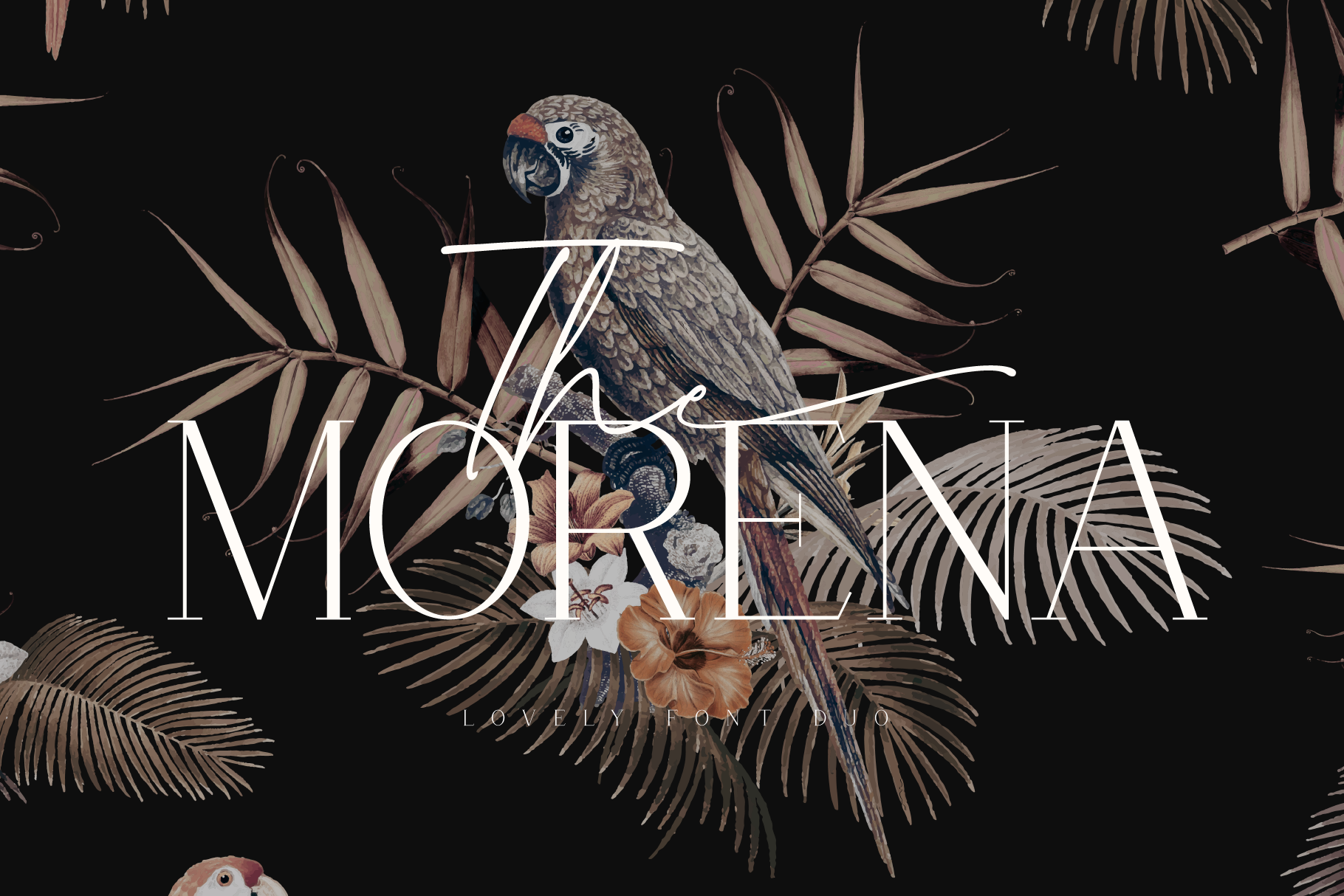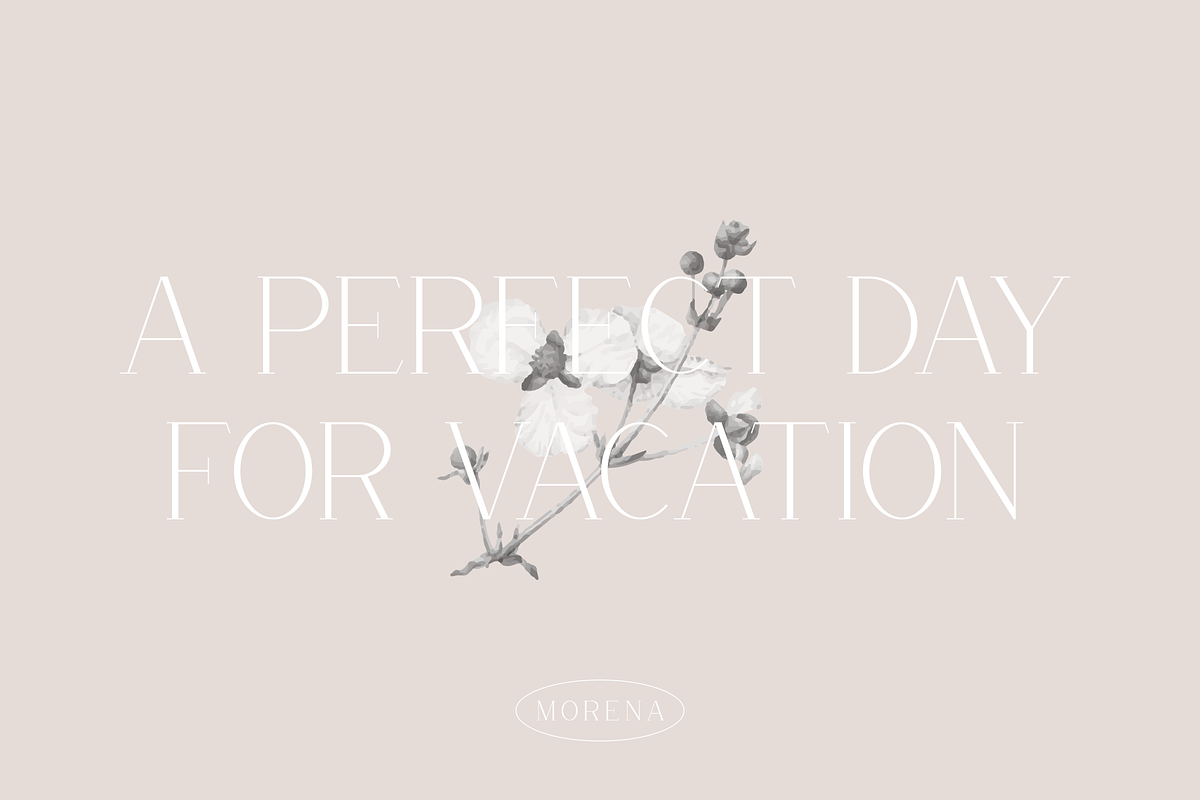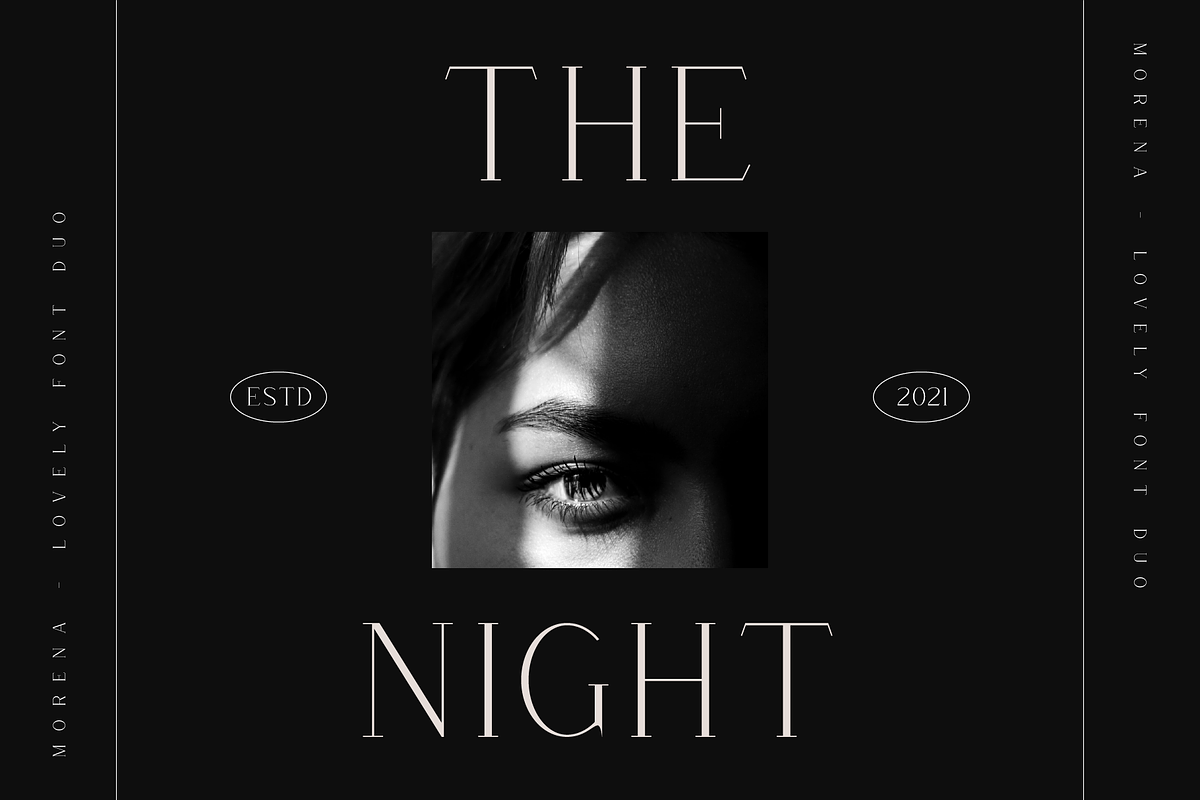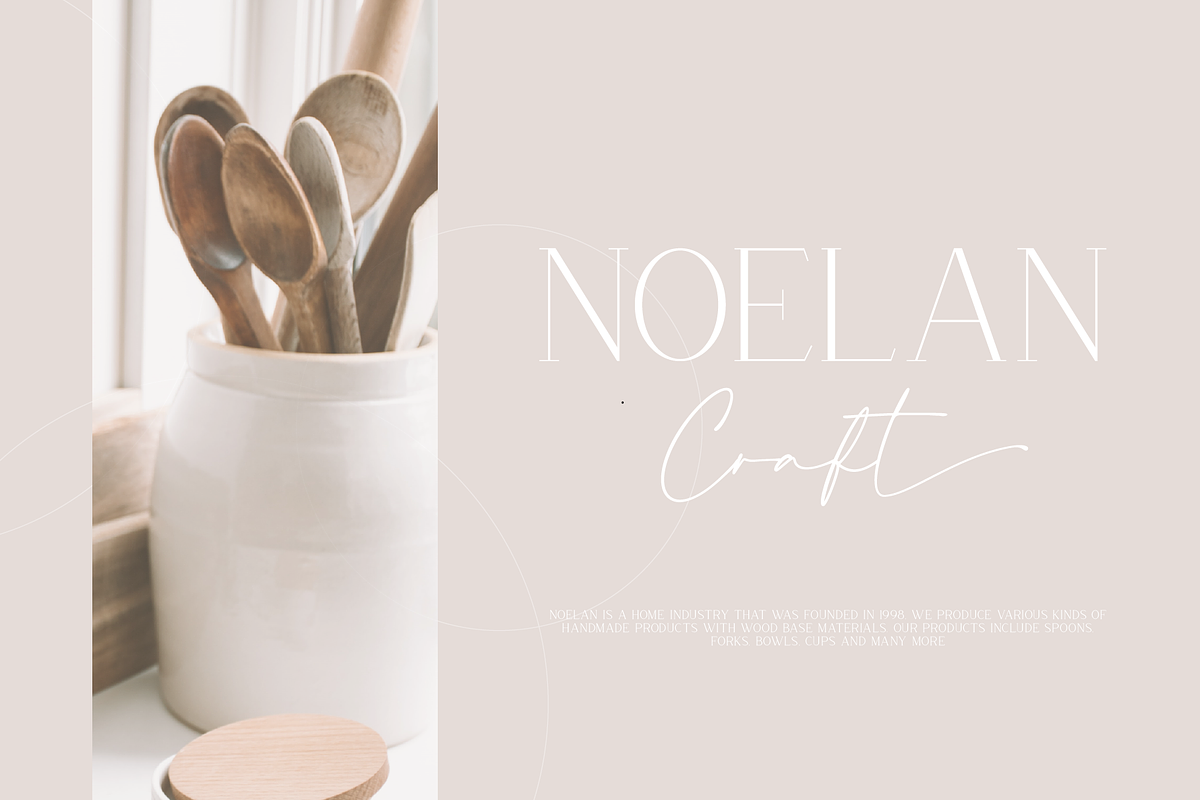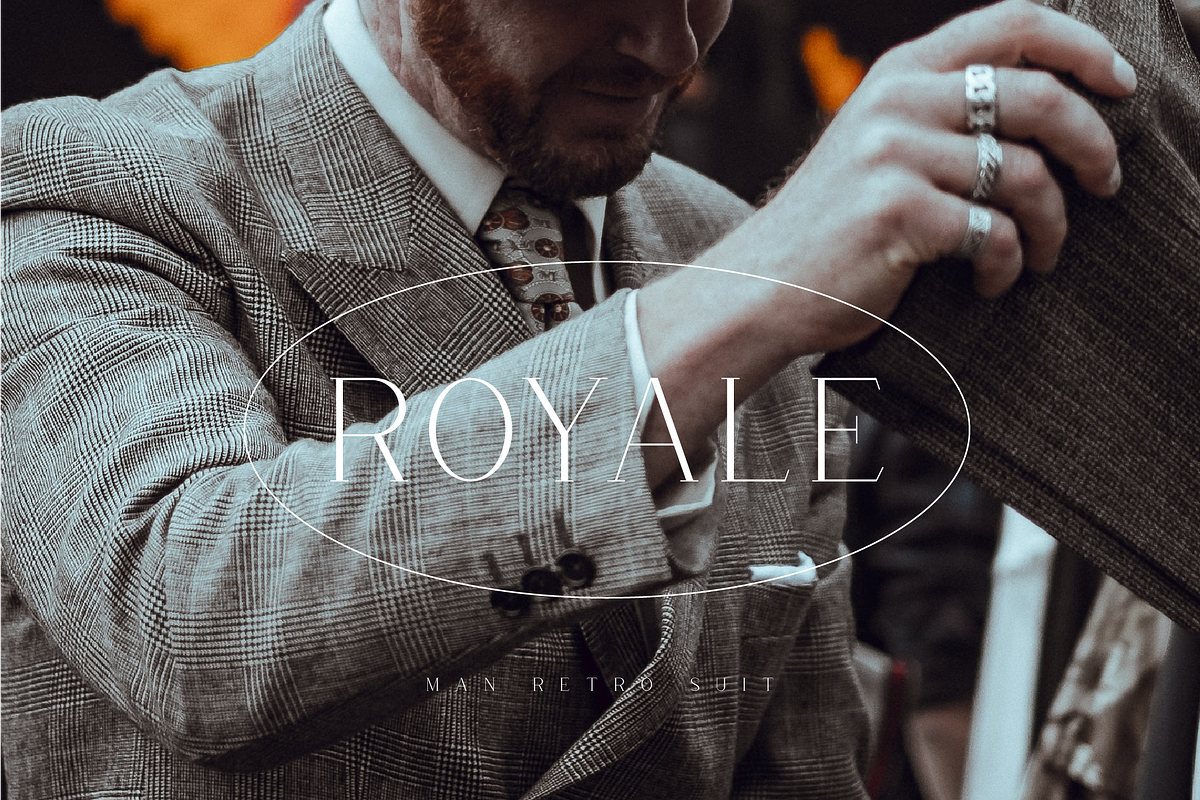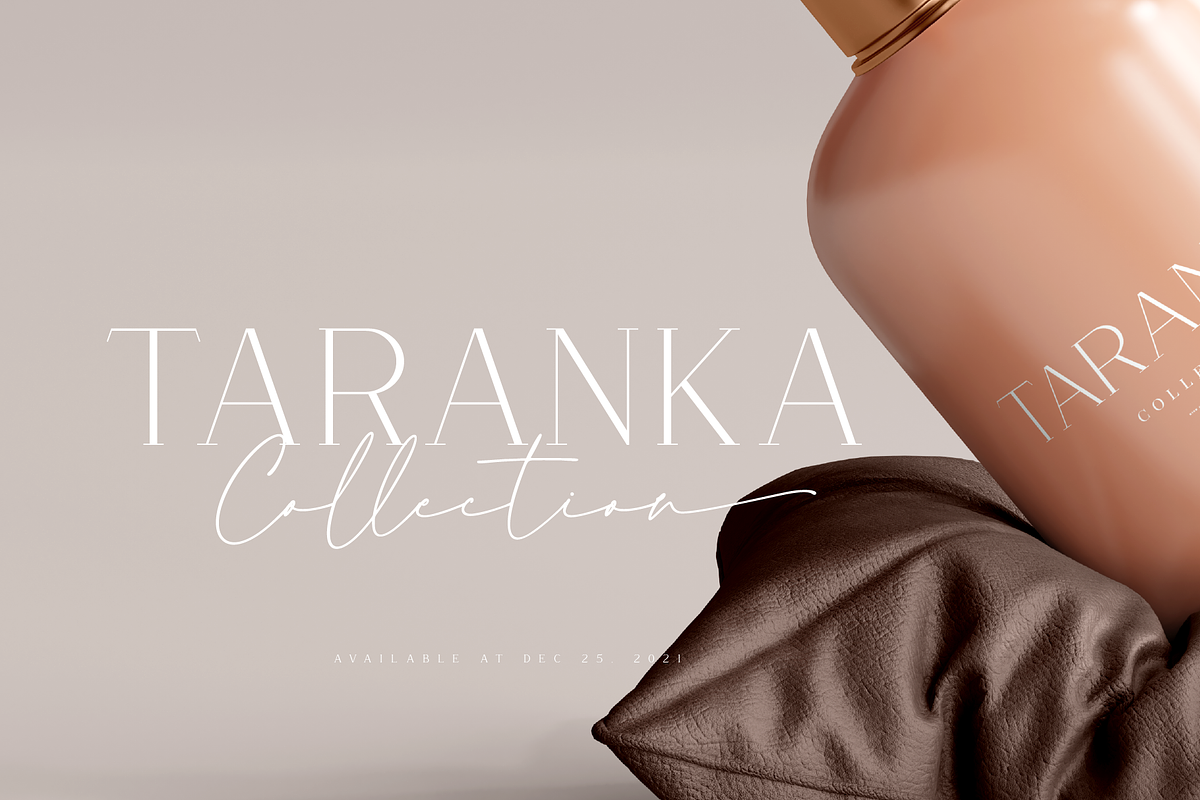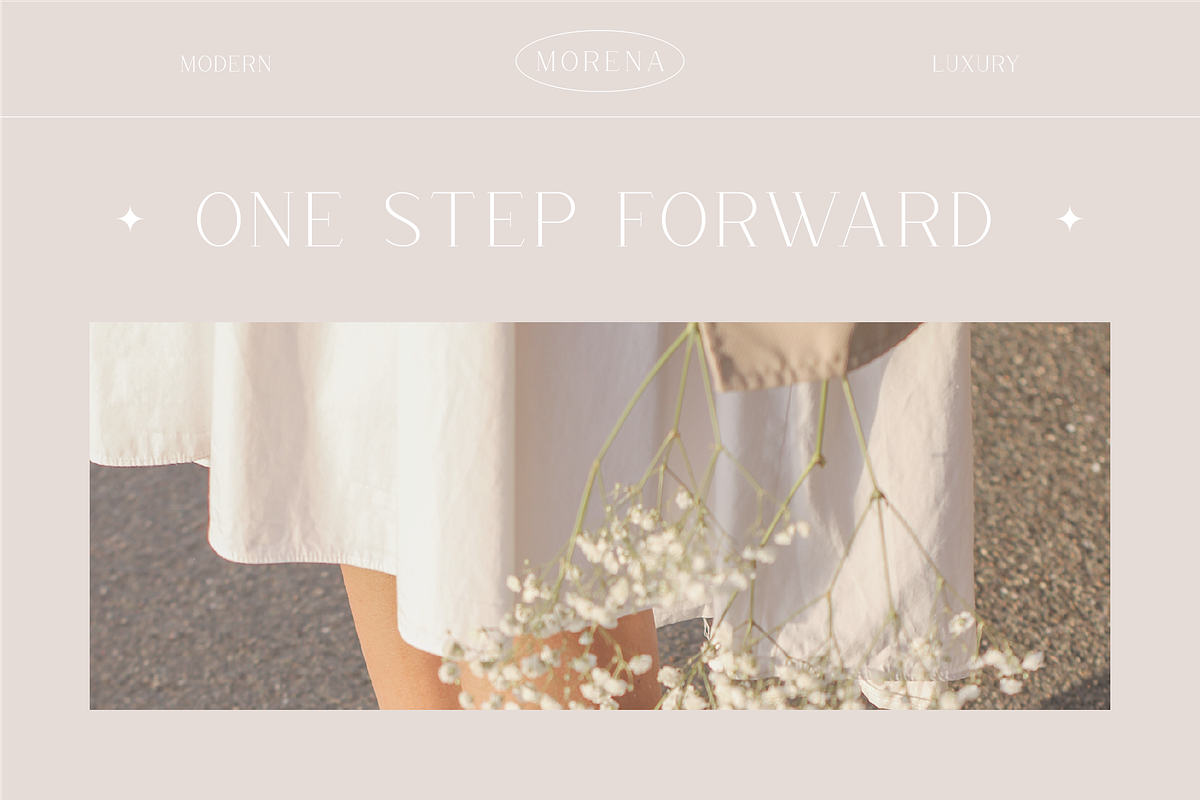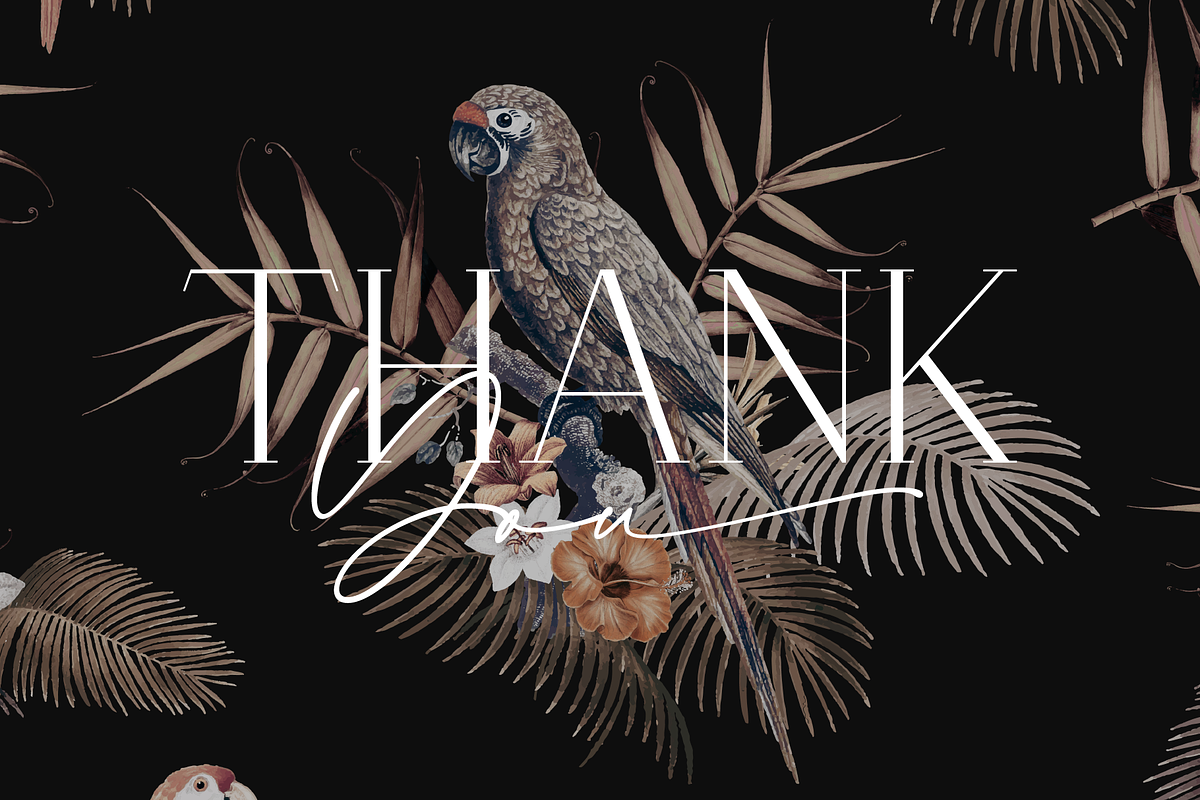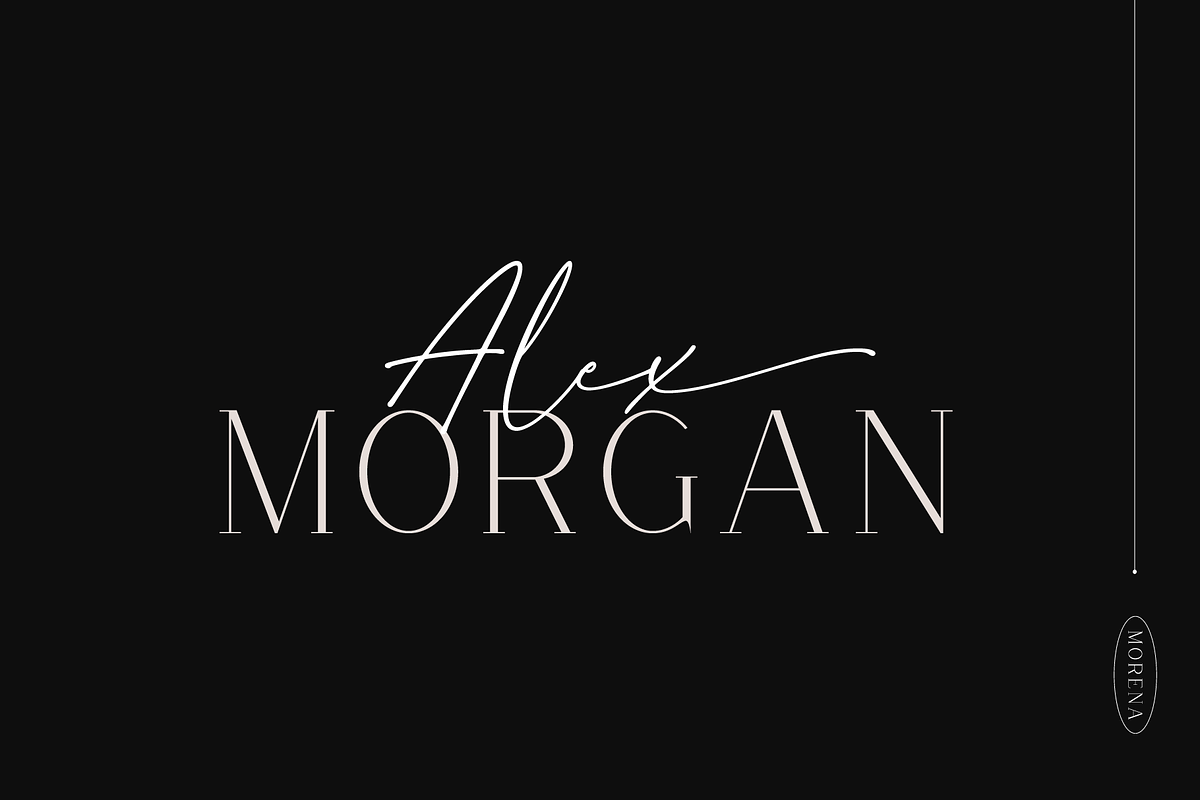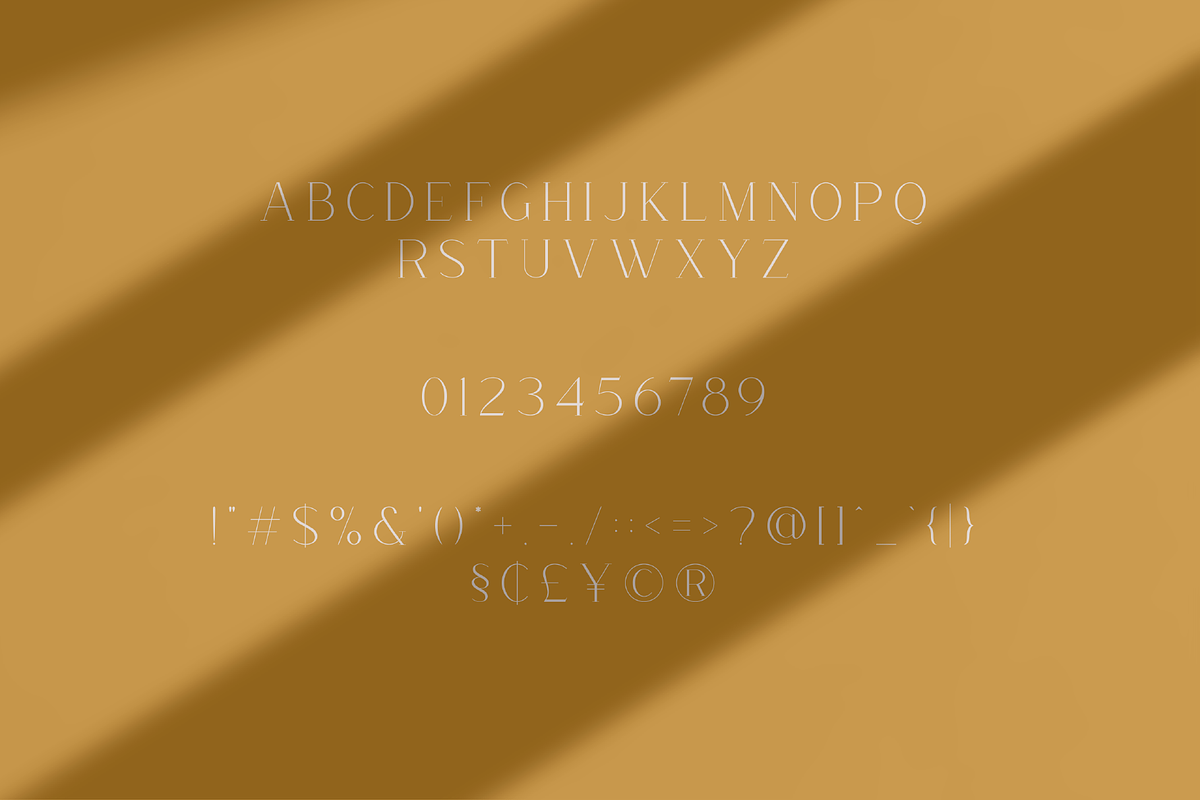
Morena Font Duo
Introducing Morena, a font duo with an elegant script and modern serif . every purchase of morena font you will get 1 free elegant script font, namely semethone (https://crmrkt.com/kzJXbE) . This is a great combination for all your design projects.